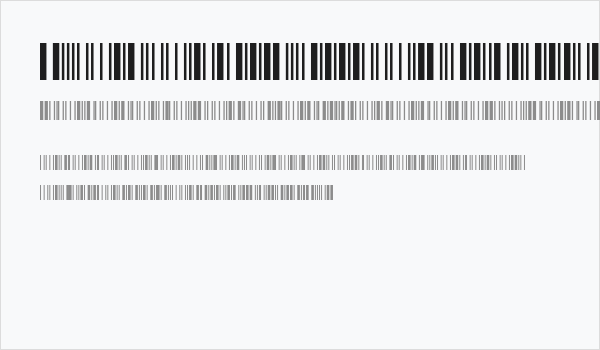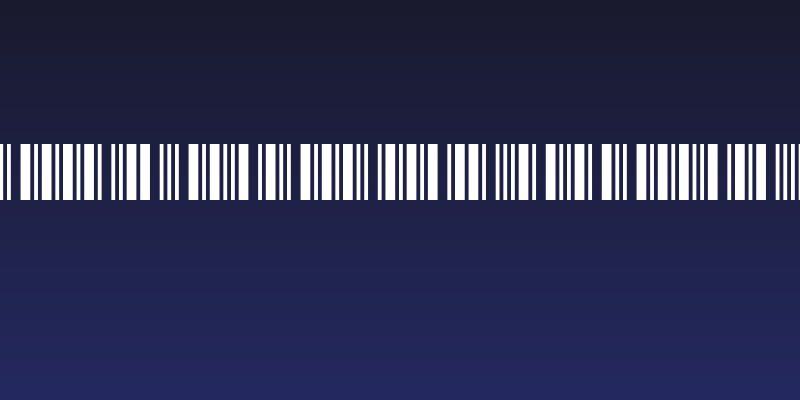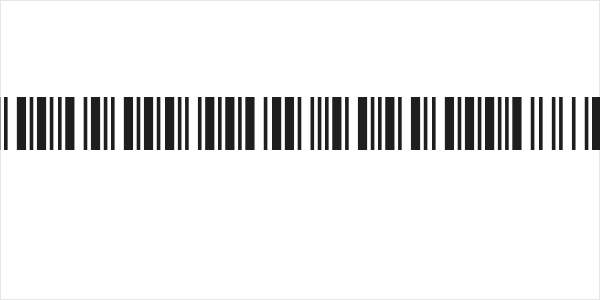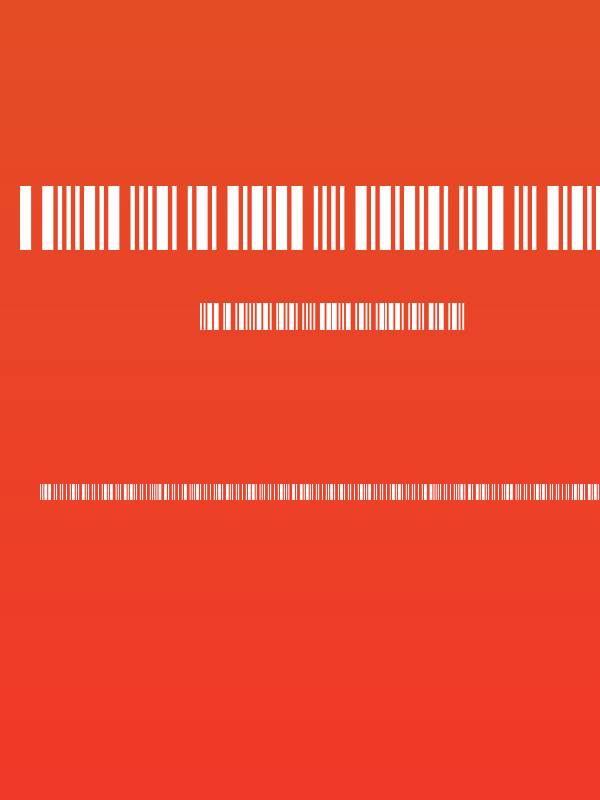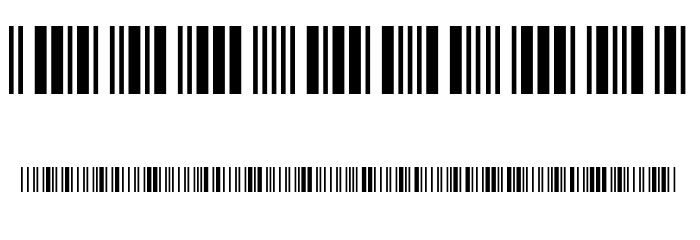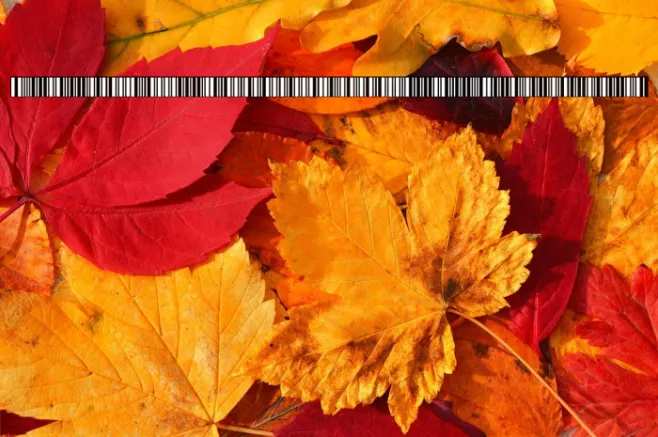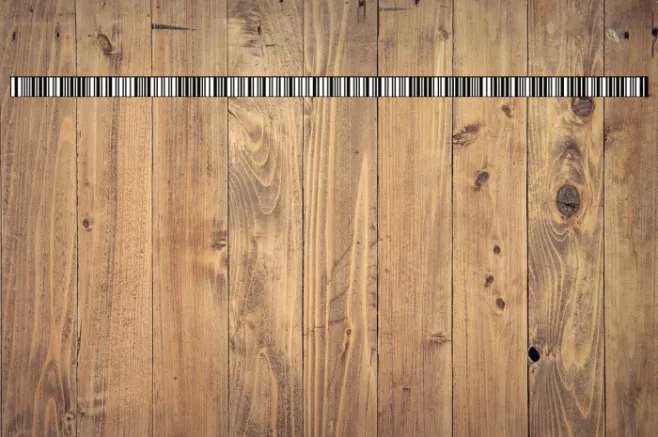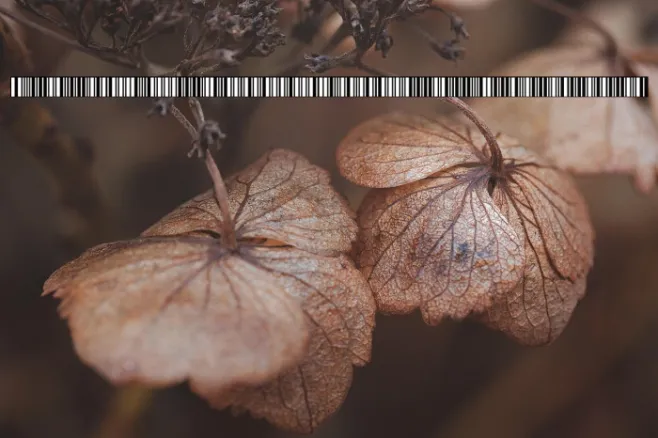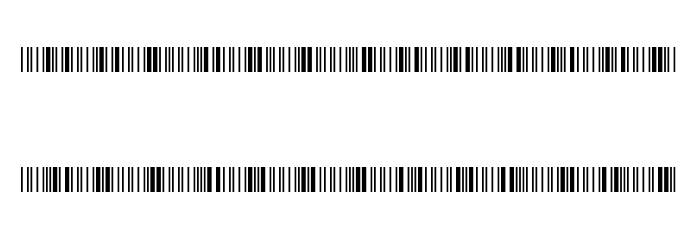
Web 3 Of 9 ASCII Regular Font
Web 3 Of 9 ASCII Regular Description
This is a barcode font designed to represent alphanumeric characters and special symbols in a machine-readable format. Each character is represented by a unique pattern of bars and spaces, making it suitable for encoding data in a compact and efficient manner. The font is structured to facilitate easy scanning by barcode readers, ensuring quick and accurate data capture. It is commonly used in various industries for labeling and tracking products, inventory management, and point-of-sale systems. The design is highly functional, focusing on clarity and precision to prevent scanning errors.
| Overall Style | Functional |
| Use Case | Barcodes |
| Proposed Projects | Ideal for product labeling, inventory tracking, and point-of-sale systems where barcode scanning is required. |